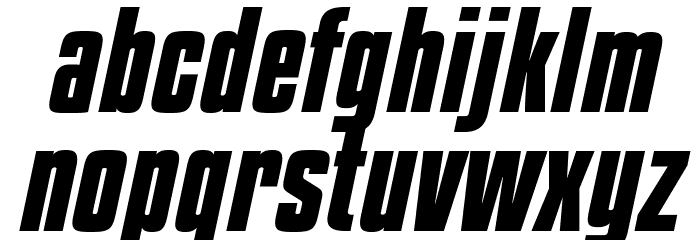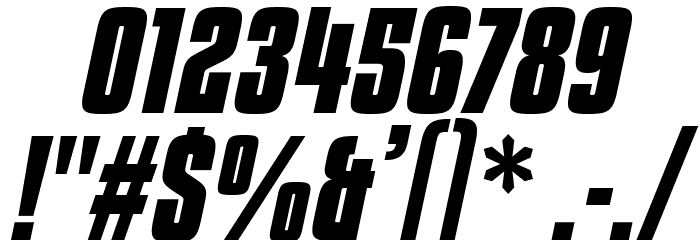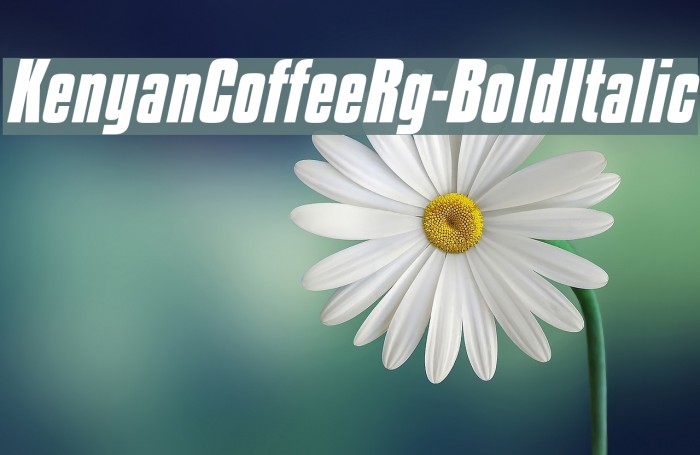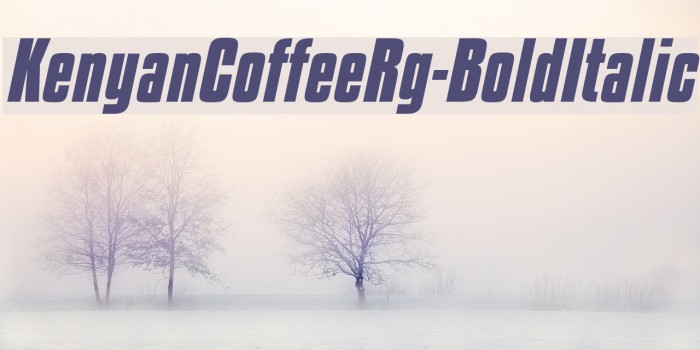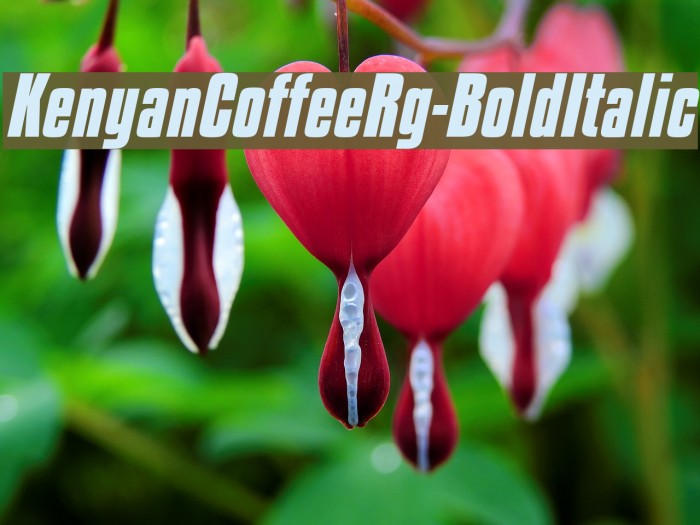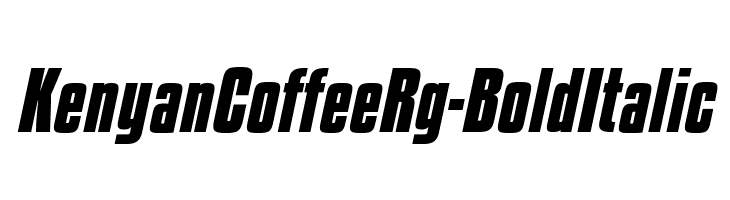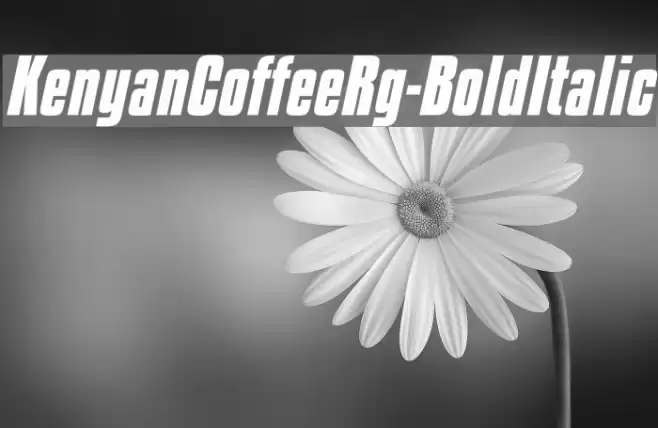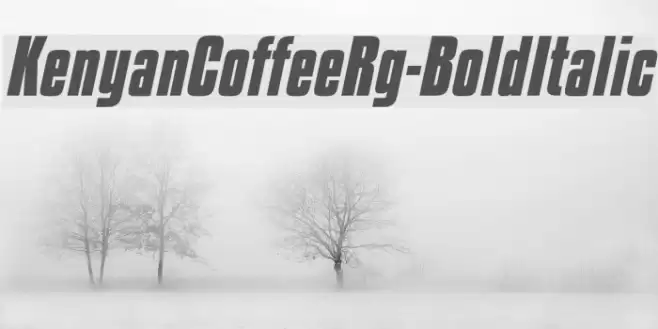
KenyanCoffeeRg-BoldItalic Font
This font exhibits a bold and italicized style, characterized by strong, thick strokes and a forward-leaning posture. The uppercase and lowercase letters maintain a consistent weight, providing a sense of uniformity and strength. The numerals are equally bold, ensuring visibility and impact. Special characters are designed with the same boldness, making them stand out. The overall design is modern and dynamic, suitable for making a strong visual statement. The font's condensed width allows for efficient use of space, making it ideal for headlines and titles where impact is crucial.
A bold, italicized font with a modern, dynamic style and condensed width.
- Proposed Projects: Ideal for branding, advertising, headlines, and any project requiring a strong visual impact.